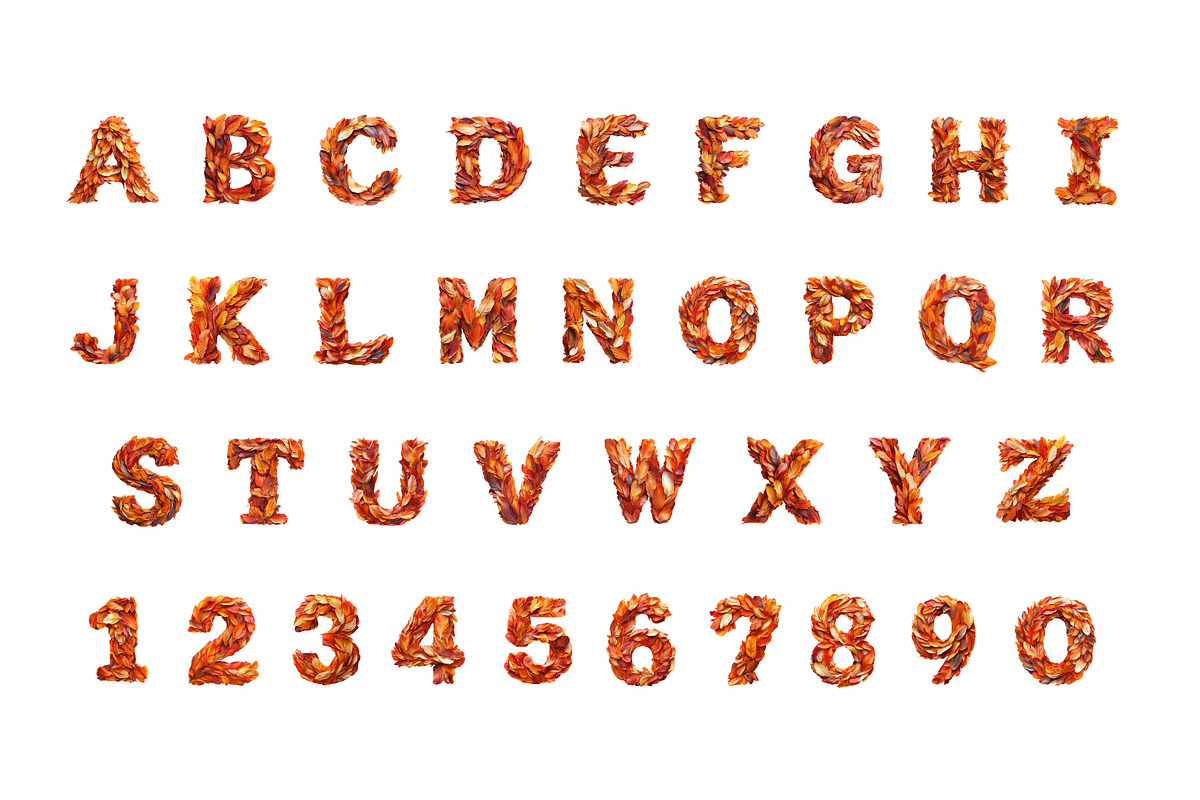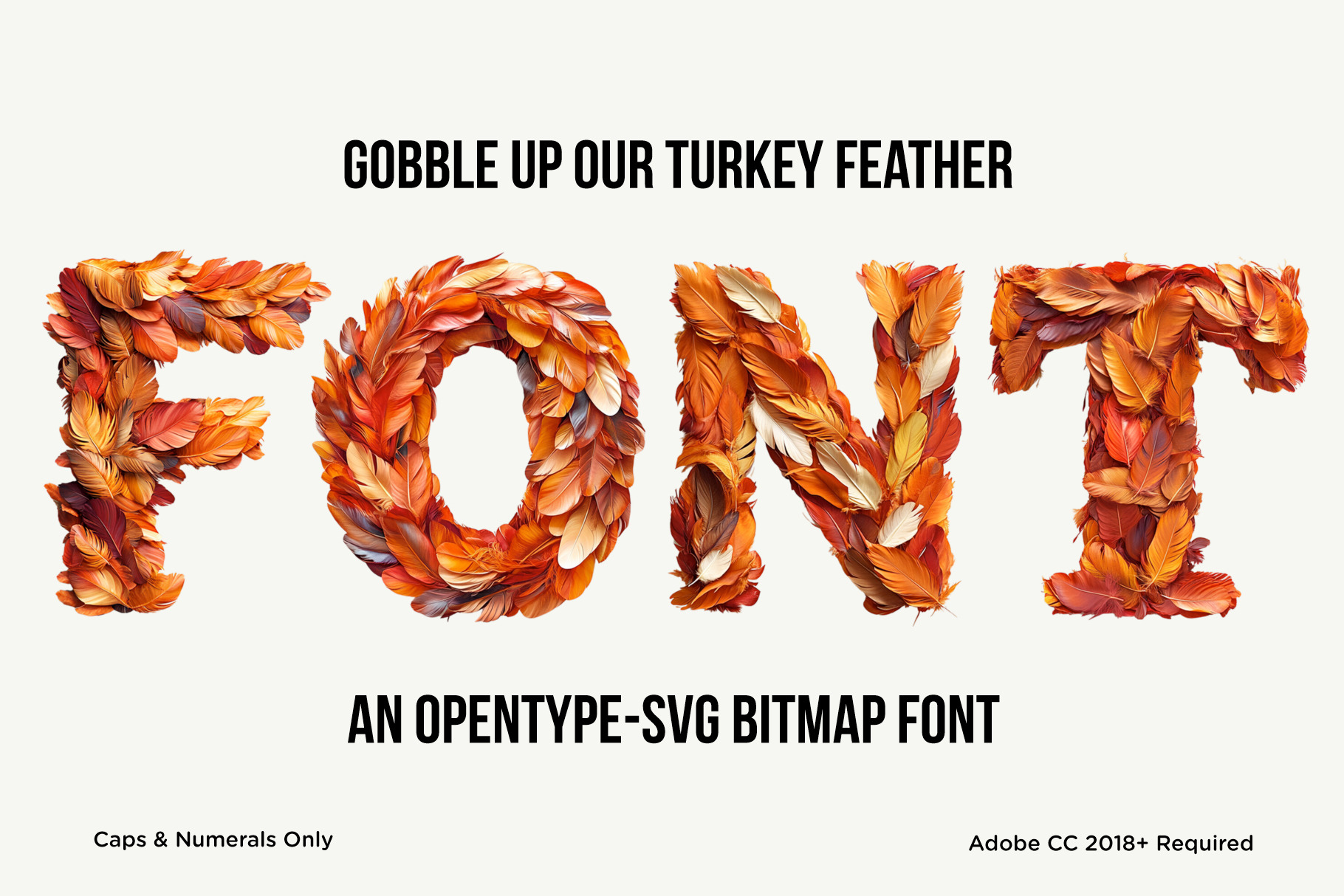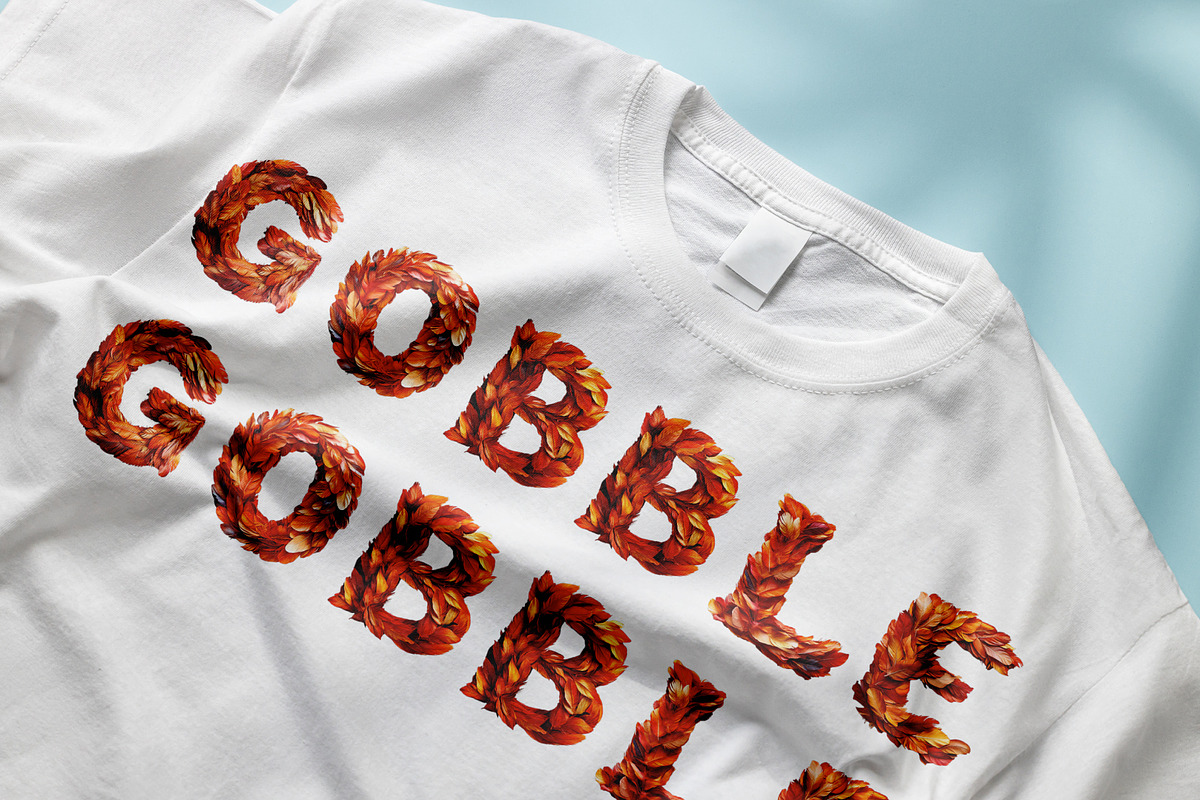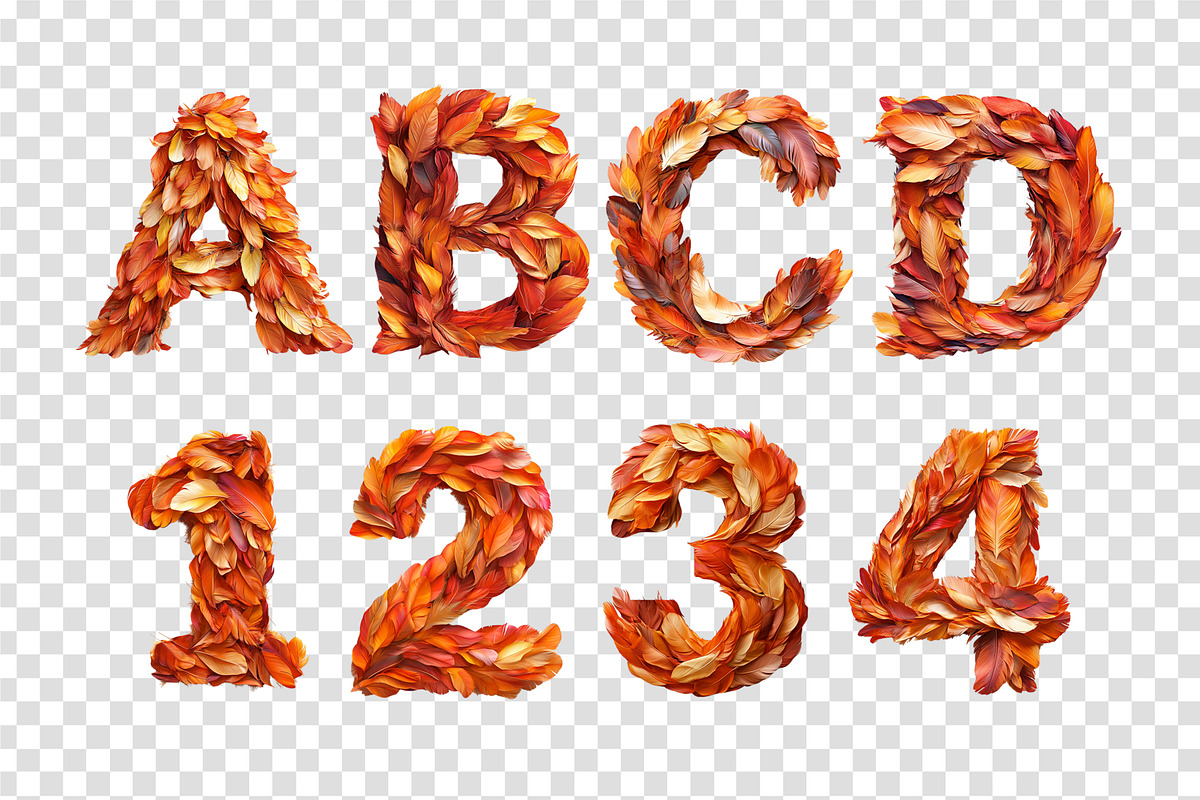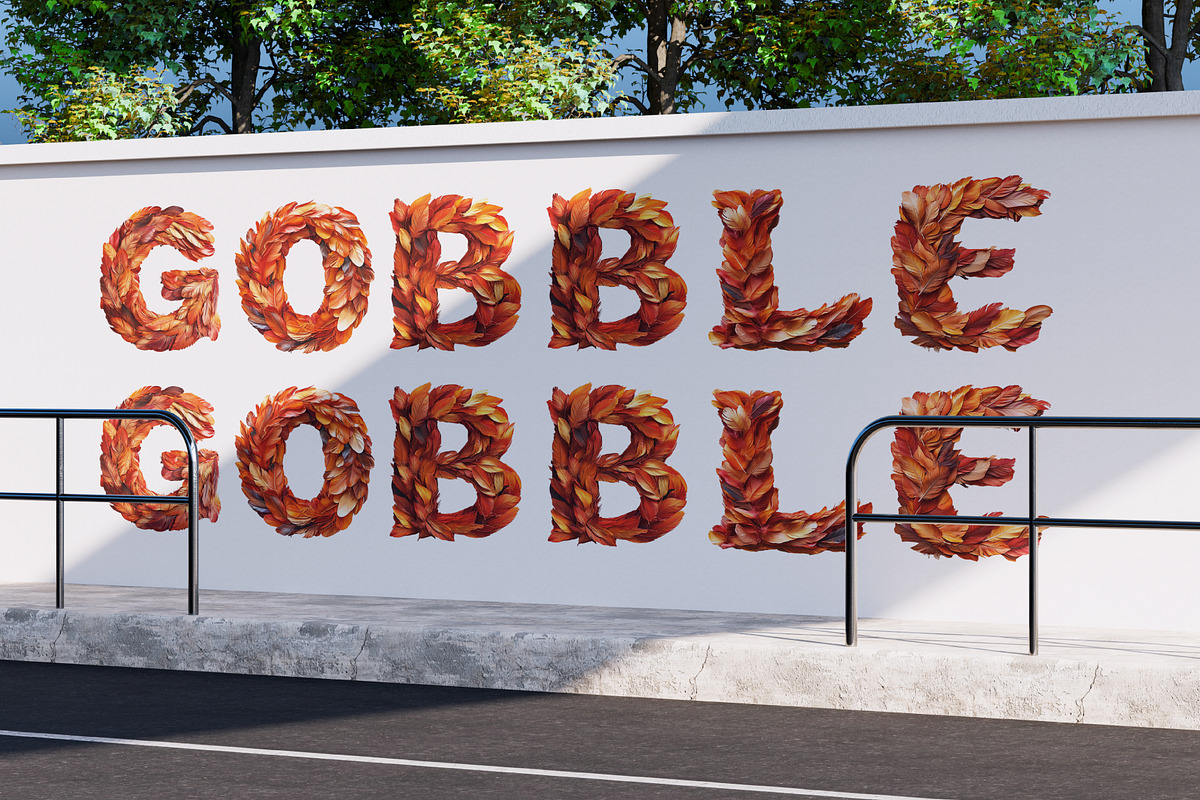
Turkey Feather 3D Font
Turkey Feather is a soft 3D display font crafted from delicate, photorealistic feathers. Each letter features detailed layering, subtle shadows, and organic texture to create a warm, handmade feel — perfect for fall projects, rustic branding, apparel, posters, and cozy seasonal designs.
This OpenType-SVG bitmap font includes uppercase letters and numerals only. Each glyph features high-resolution feather detail baked directly into the font file, producing a tactile, natural look that shines in large display sizes such as titles, signage, and print layouts.